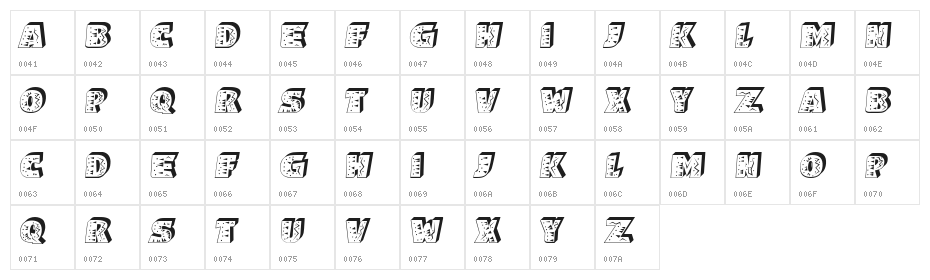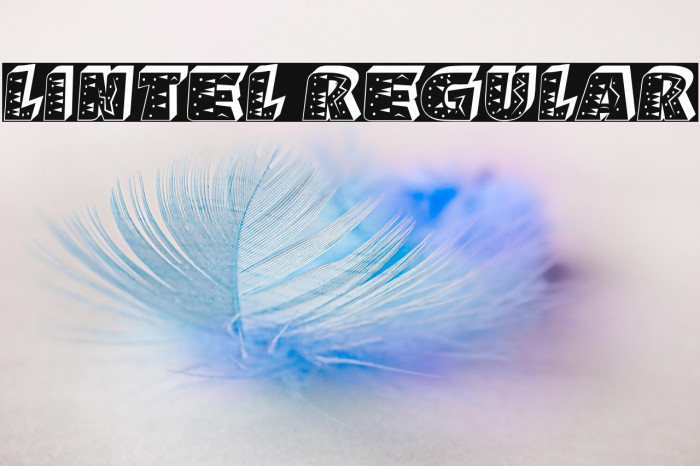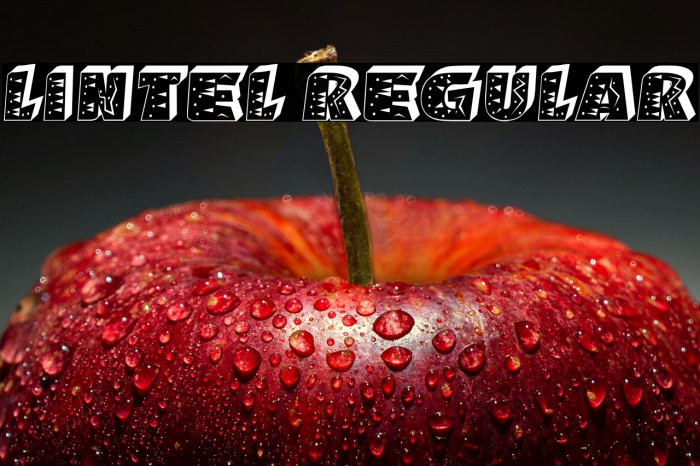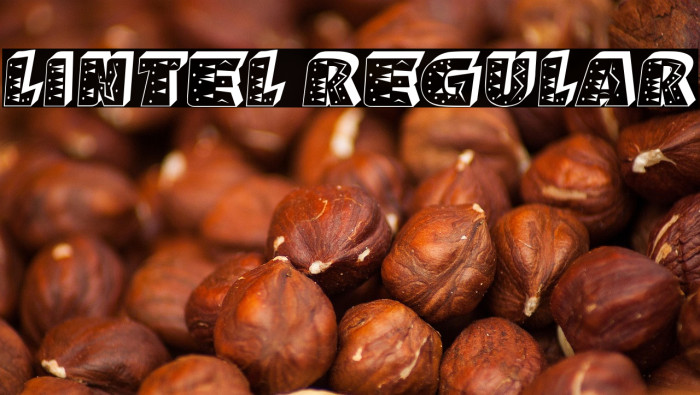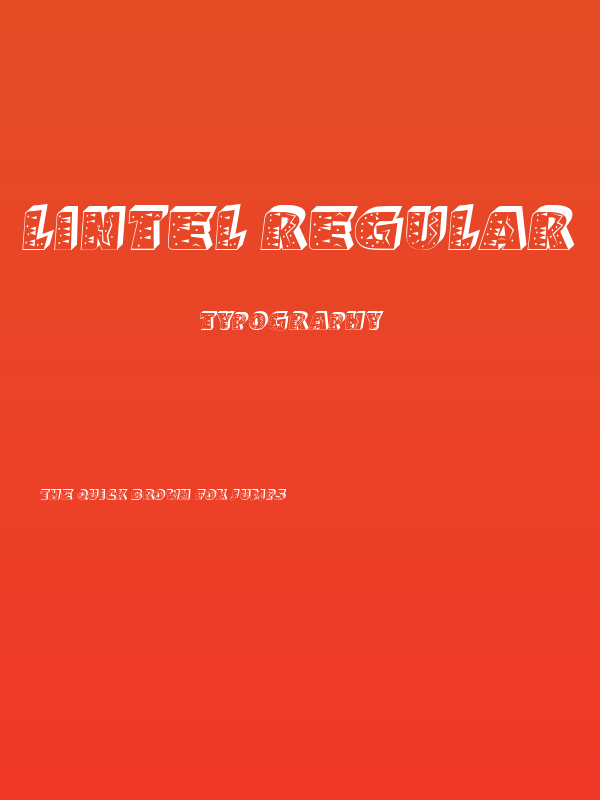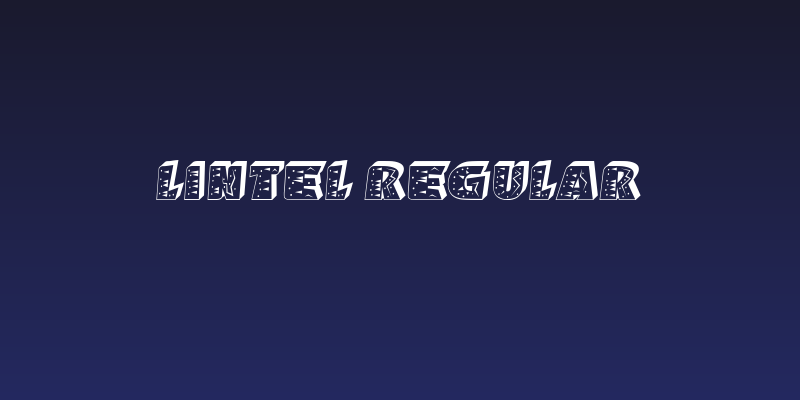
Lintel Regular Font
Lintel Regular Description
This font features a bold, decorative style with a playful and dynamic appearance. Each character is filled with intricate patterns and textures, giving it a unique and eye-catching look. The letters are outlined with a thick black border, enhancing their visibility and adding a three-dimensional effect. The overall design is reminiscent of comic or graffiti art, making it suitable for creative and informal applications. The uppercase letters are consistent in height, while the lowercase letters maintain a similar style, ensuring uniformity across text. The font's distinctive style makes it ideal for projects that require a fun and engaging visual element.
| Proposed Projects | Ideal for posters, comic book titles, children's book covers, and creative branding projects. |